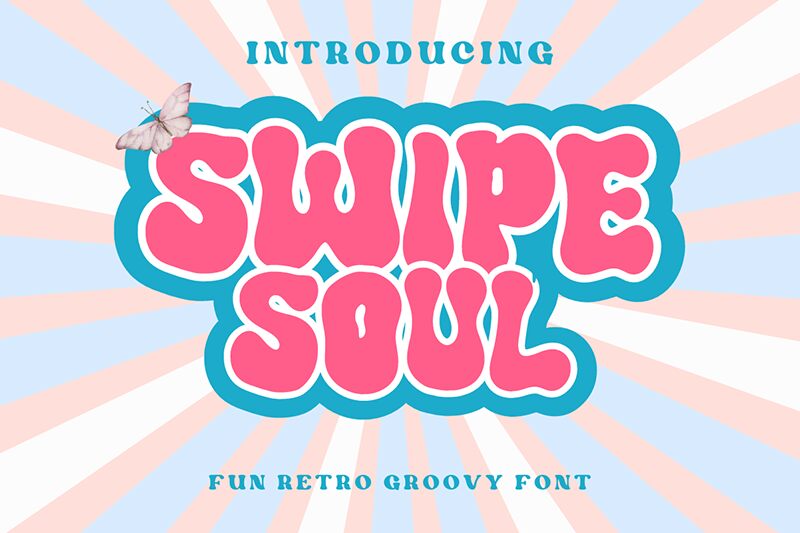
Swipe Soul font is a bold, groovy display font created by Tri Sakti Oktaviano. Organic and whimsical, this retro-inspired typeface sports a fluid design that can spice up any average project. Informal yet expressive, its letters join beautifully together in harmonious combinations which are pleasant to see and read.
Swipe Soul